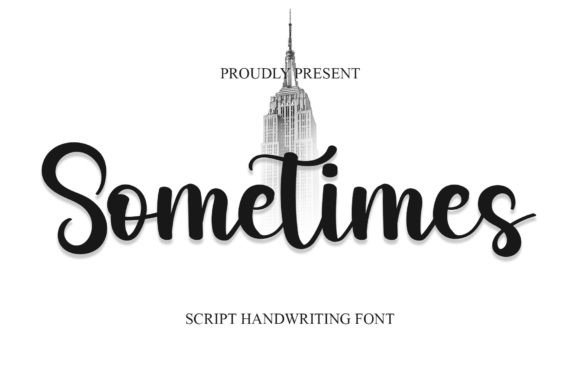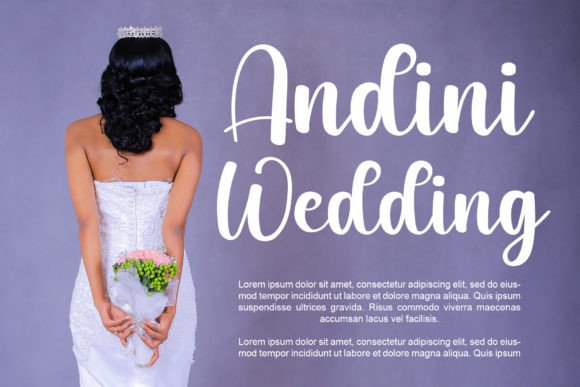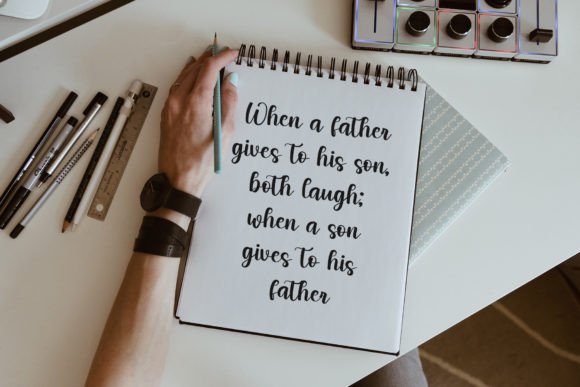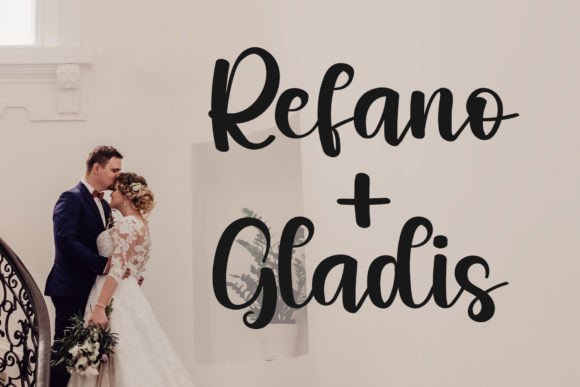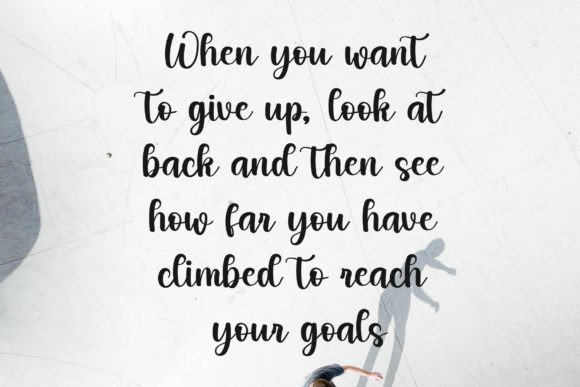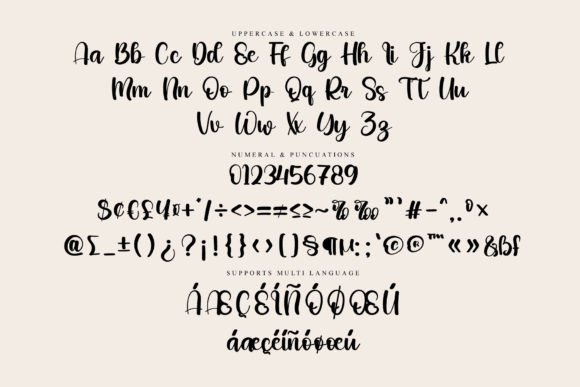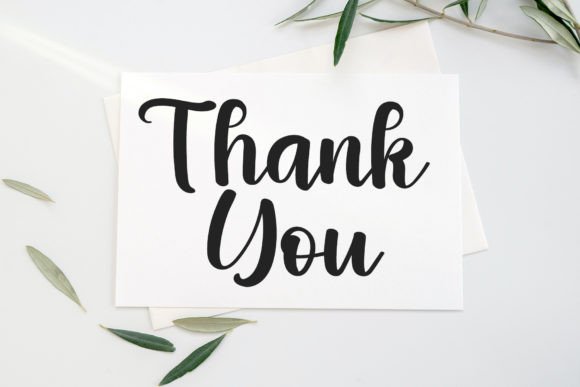
Sometimes Font
About Sometimes Font
Sometimes font is a stylish handwritten typeface that blends contemporary design with timeless classic calligraphy. Crafted with impeccable form and a balanced structure, this font is designed to enhance the beauty of any project. Whether you are working on wedding invitations, branding, social media graphics, or elegant print materials, Sometimes font adds a sophisticated and polished touch to your designs.
Classic Calligraphy Inspiration with Modern Flair
The strength of Sometimes font lies in its elegant calligraphic roots combined with modern handwriting influences. It features smooth curves and varied stroke widths that create a visually appealing flow, giving your projects a refined yet approachable look. This combination of classic and contemporary elements makes the fon suitable for a wide range of applications.
Versatile Uses of Sometimes Font
Sometimes fot is perfect for many creative purposes, including:
• Wedding invitations and thank you cards
• Logos and brand identity designs
• Social media visuals and promotional materials
• Posters, flyers, and printed projects
• Elegant stationery and personal correspondence
Its balanced and varied letterforms ensure readability while adding an artistic flair to any project.
Enhancing Your Designs with Elegance and Style
Using Sometimes font brings an air of sophistication and style to your work. Its elegant script style helps communicate a sense of luxury and attention to detail, making your messages feel more impactful and memorable. This fot is ideal for designers who want to combine tradition with modern aesthetics.
Why Choose Sometimes Fot?
• Stylish and elegant handwritten script
• Inspired by classic calligraphy with modern touches
• Balanced and varied stroke widths for readability
• Versatile for a wide range of creative projects
• Adds sophistication and timeless beauty
Final Thoughts on Sometimes Font
In summary, Sometimes fon is a sophisticated and stylish handwritten typeface perfect for wedding invitations, branding, social media, and more. Its elegant design makes it a valuable addition to any designer’s toolkit, adding timeless beauty and contemporary flair to your projects.